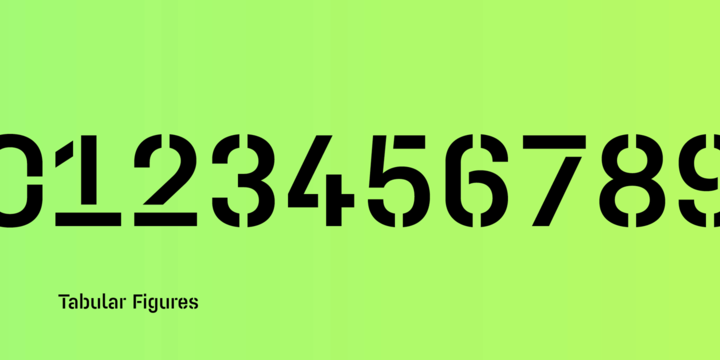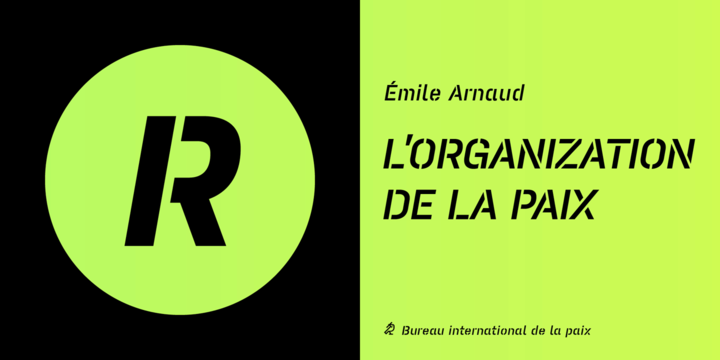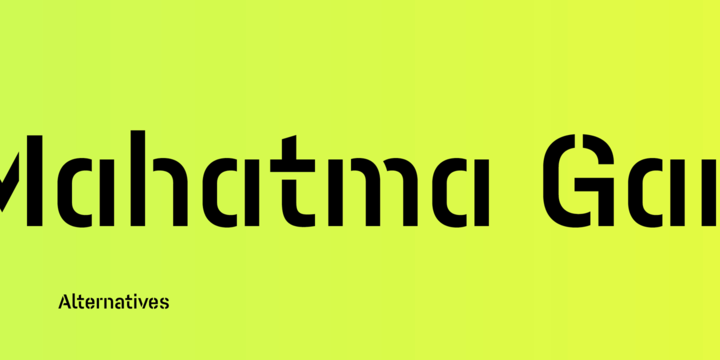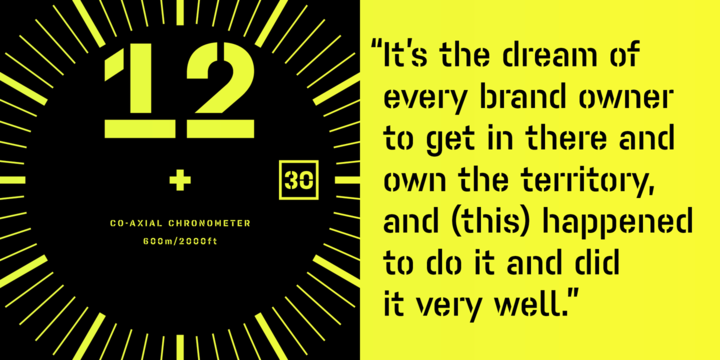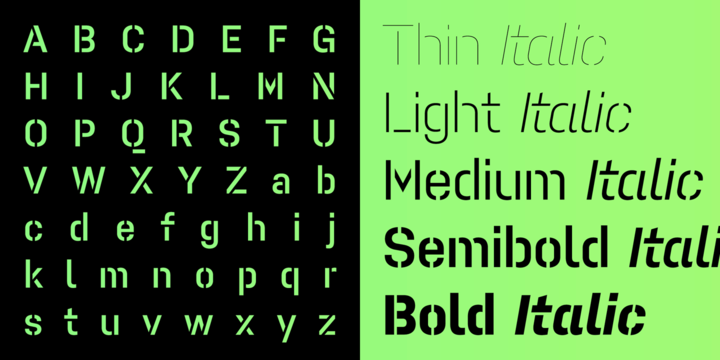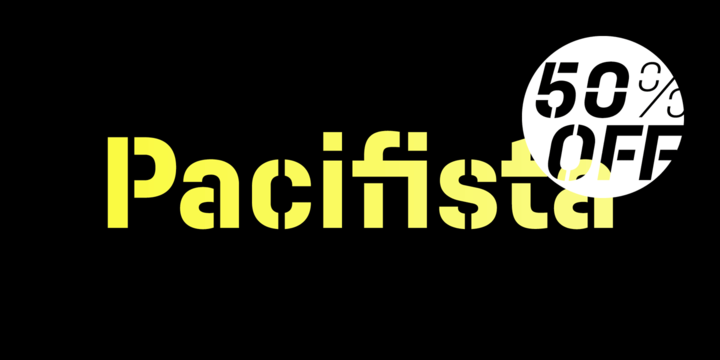
Pacifista Font Family
Pacifista takes advantage of the well-tested structure of our constructed typefaces, the directness and simplicity of which are by far the best suited to stencils. Straight lines, regular arcs and purity of drawing facilitate maintaining the maximum possible legibility even in a typeface that is practically devoid of any joining of strokes.